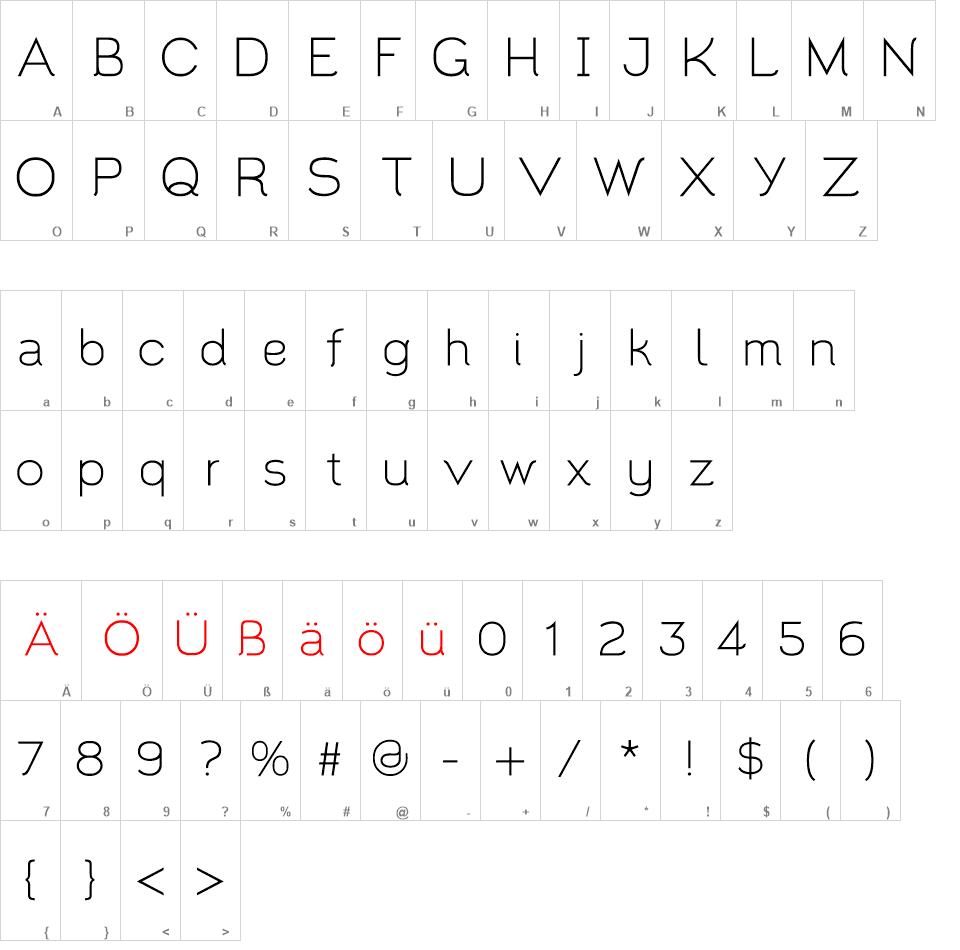
Santor
Santor (pronounced /center/) is a typeface inspired by simplicity, subtle curves and sharpness. Each character is given a unique look so that it's easy to distinct them when they are put together. Suitable for headlines, large text..
+ Stylistic alternates
+ Discretionary ligatures
+ Swash
+ Vietnamese accents (uppercase
+ Font width neutralization
+ Kerning review
+ Western accents
+ Vietnamese accents (lowercase)